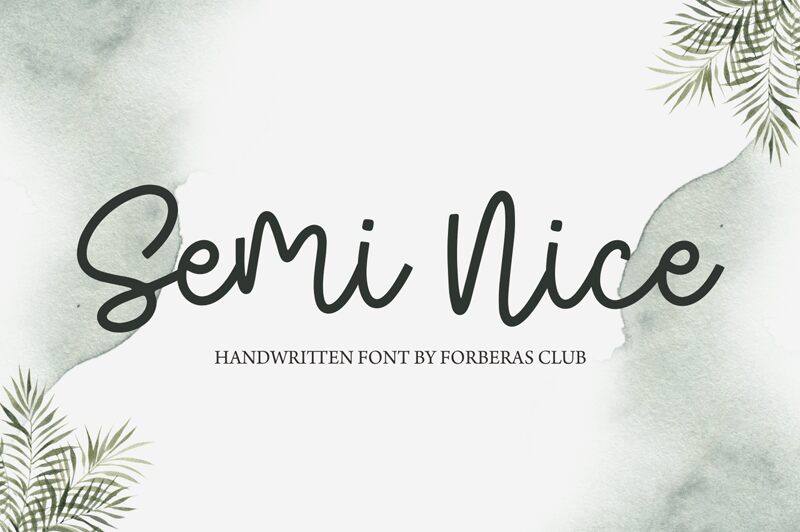
Semi Nice, the semi-light handwritten font designed by Forberas Club, is a breath of fresh air for your design projects. Perfect for adding a personal touch to invitations, greeting cards, or even logos and branding materials. Its delicate and flowing strokes add an element of elegance to any project. This versatile font can be used in both digital and print media, making it ideal for websites, social media graphics, brochures and more. Get your creative juices flowing with Semi Nice's unique style that is sure to impress!
Semi Nice